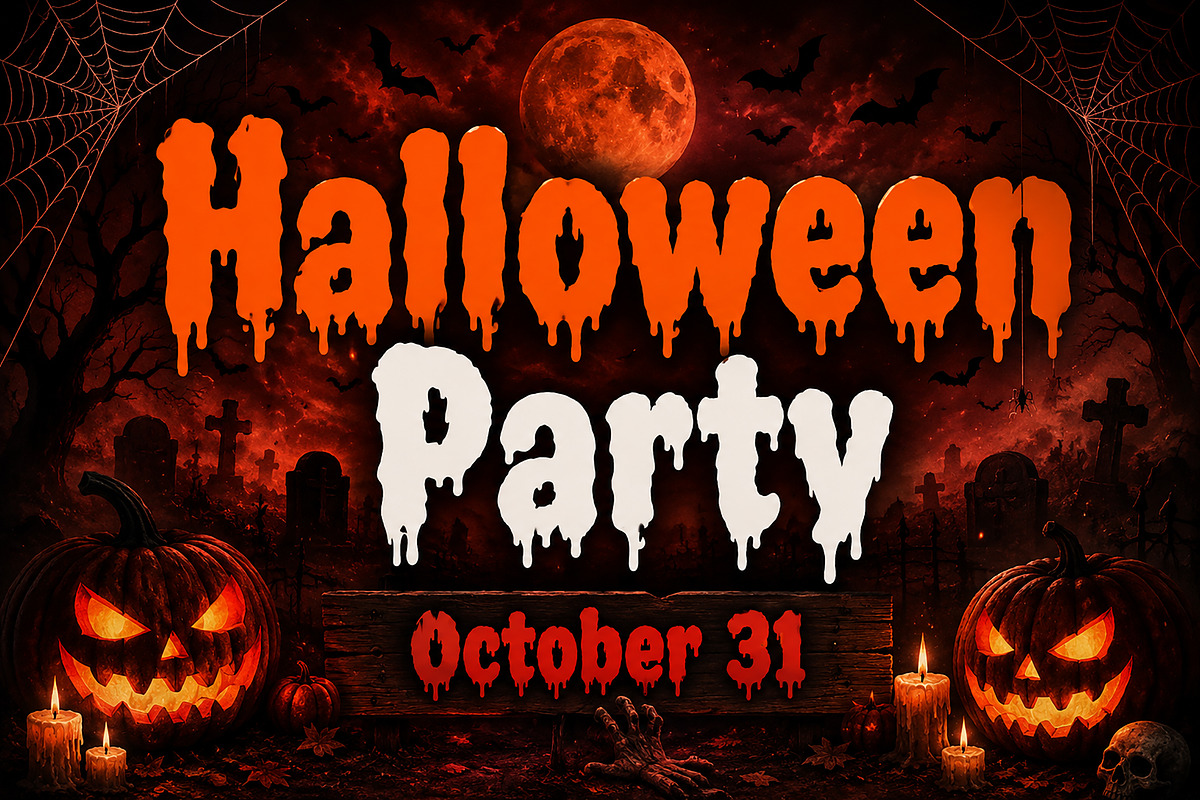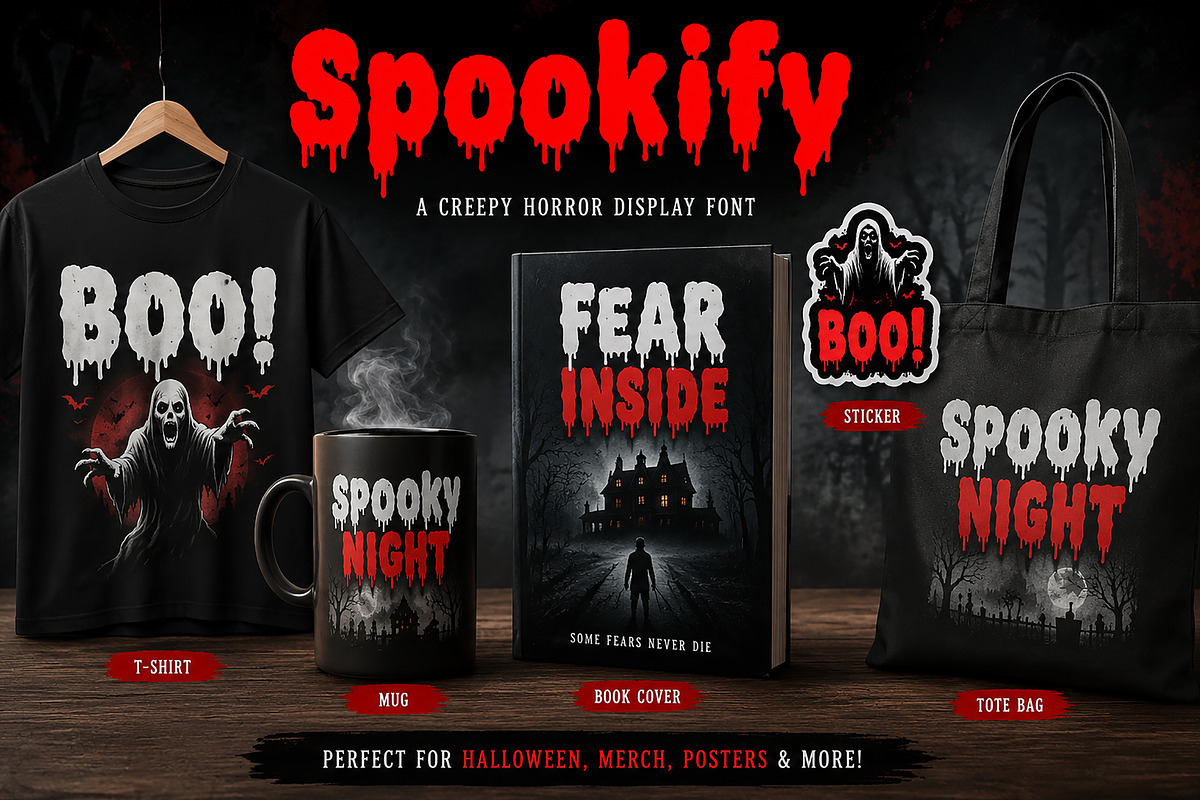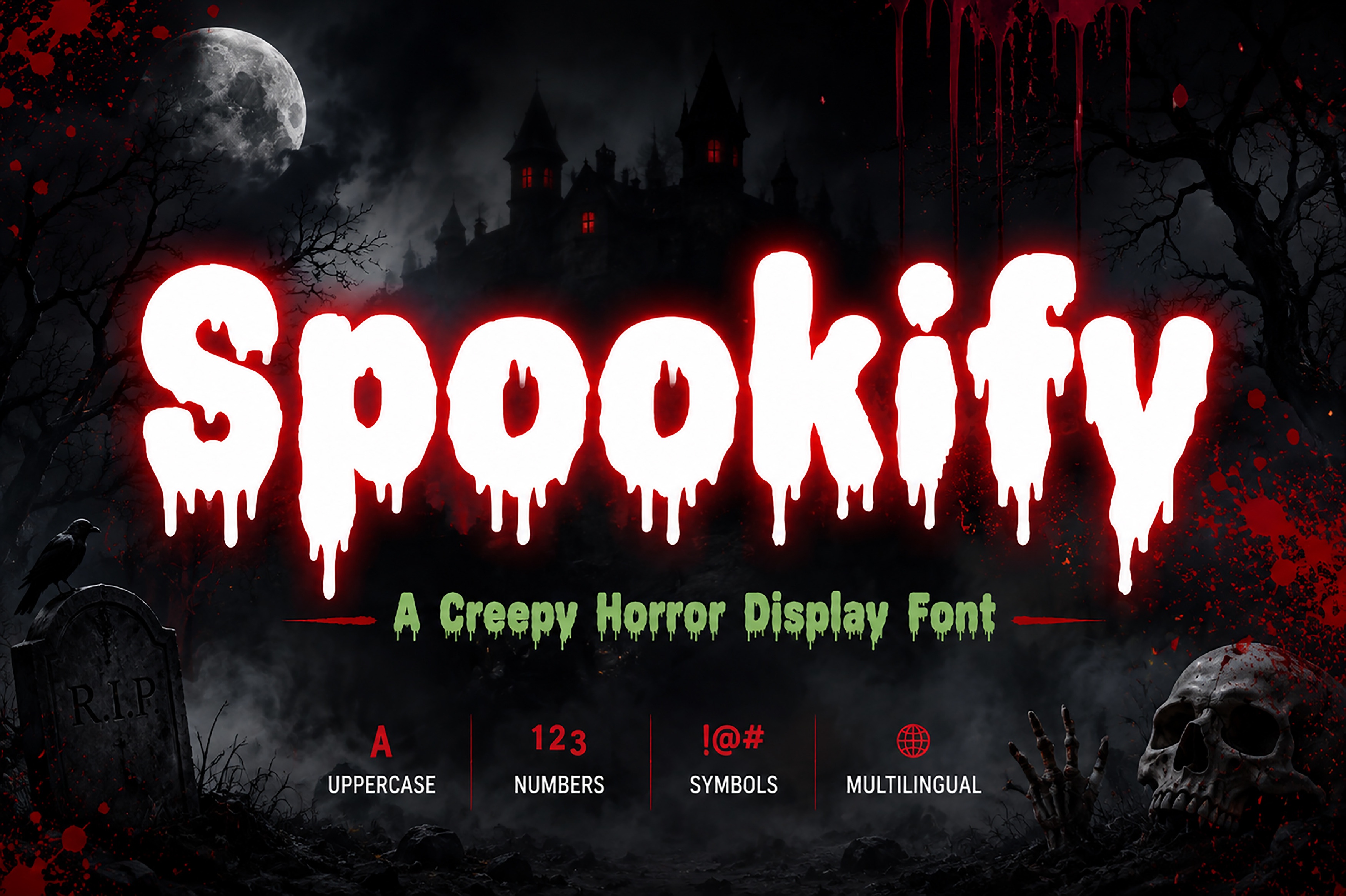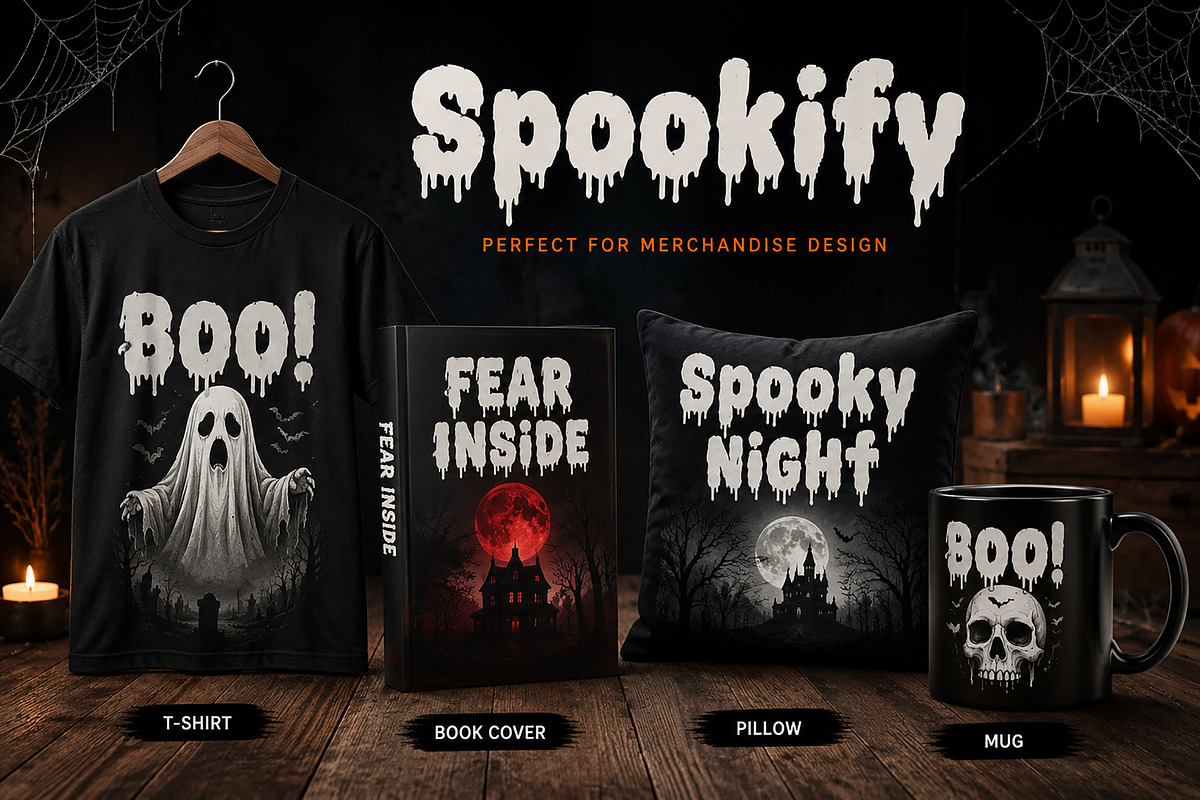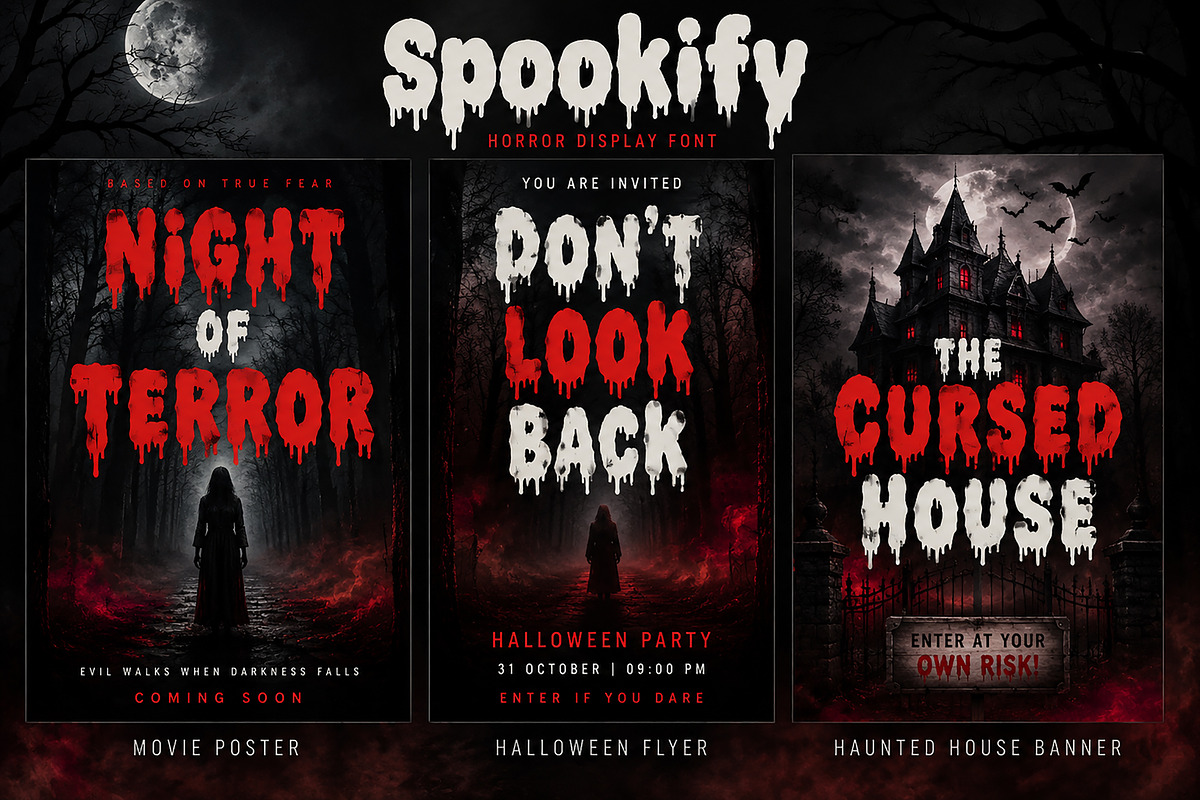
Spookify —Creepy Horror Display Font
Spookify — Creepy Horror Display Font
Spookify is a chilling horror display font crafted to bring fear, mystery, and dark vibes into your designs. With its dripping letterforms and eerie handcrafted style, this font is perfect for Halloween-themed projects, horror movie posters, spooky branding, haunted house flyers, book covers, merchandise, and creepy social media content.
Designed with bold, eye-catching shapes and terrifying dripping effects, Spookify delivers the perfect balance of horror and readability. Whether you're creating a haunted event poster or a frightening t-shirt design, this font adds an unforgettable spooky atmosphere.
Halloween Party Invitations
Horror Movie Posters
Haunted House Flyers
Scary Book Covers
T-shirt Designs
Stickers & Merchandise
Gaming Titles
YouTube Thumbnails
Branding Projects
Make your designs darker, scarier, and more unforgettable with Spookify.